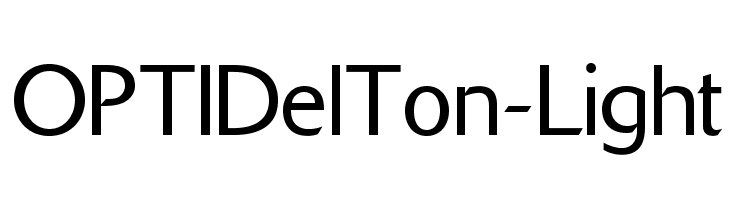
A modern sans-serif font with clean lines and geometric shapes.
A modern, clean typeface with balanced structure and excellent readability.
A modern, geometric font with consistent stroke width and clean lines.